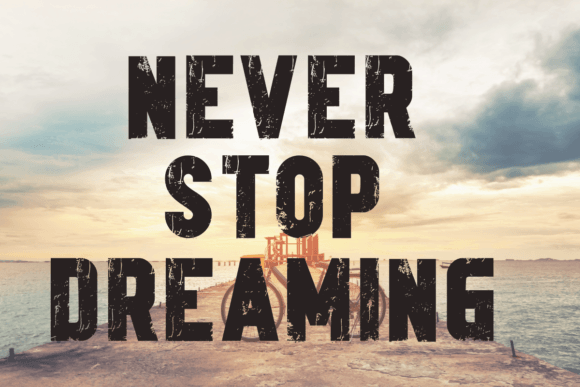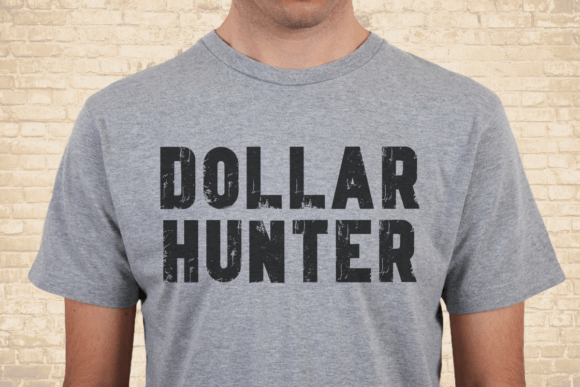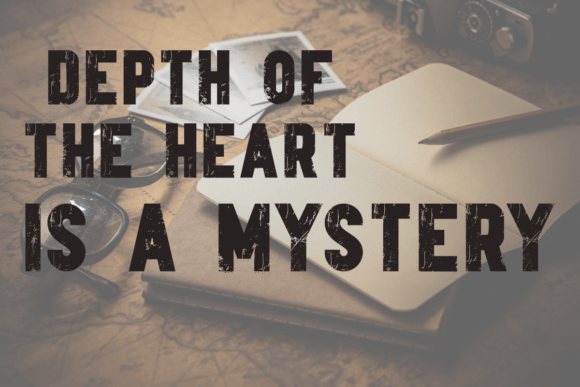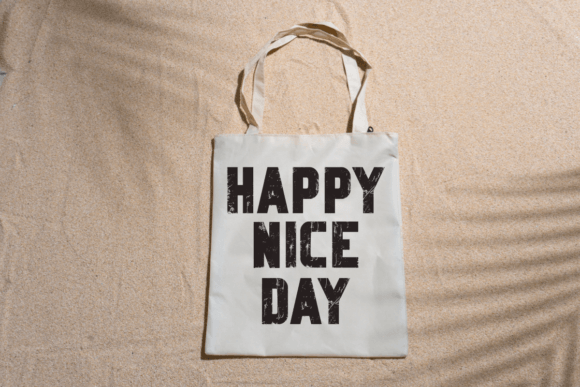
Brush Texture Font
Brush Texture is a bold font that has a vintage and unique feel. The wide characters and bold serifs make this font ideal for eye-catching designs. You can use it for headlines, t-shirt typography, banners, product labels, and can also be used on various handicraft projects such as t-shirts, hoodies, book covers, and others.